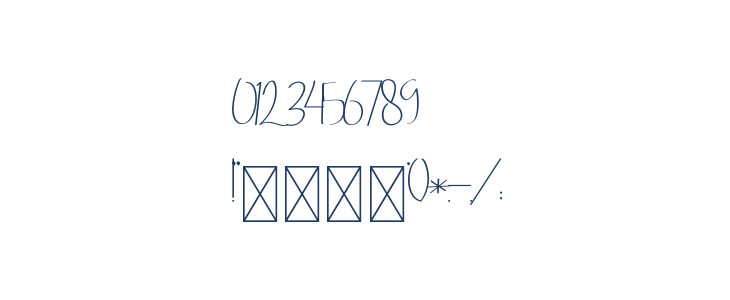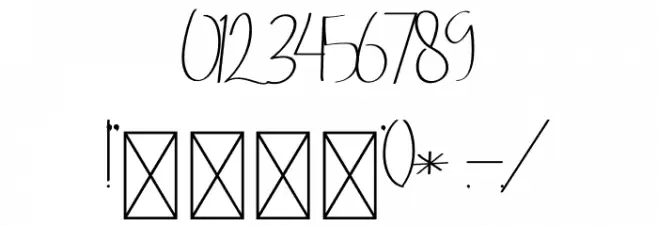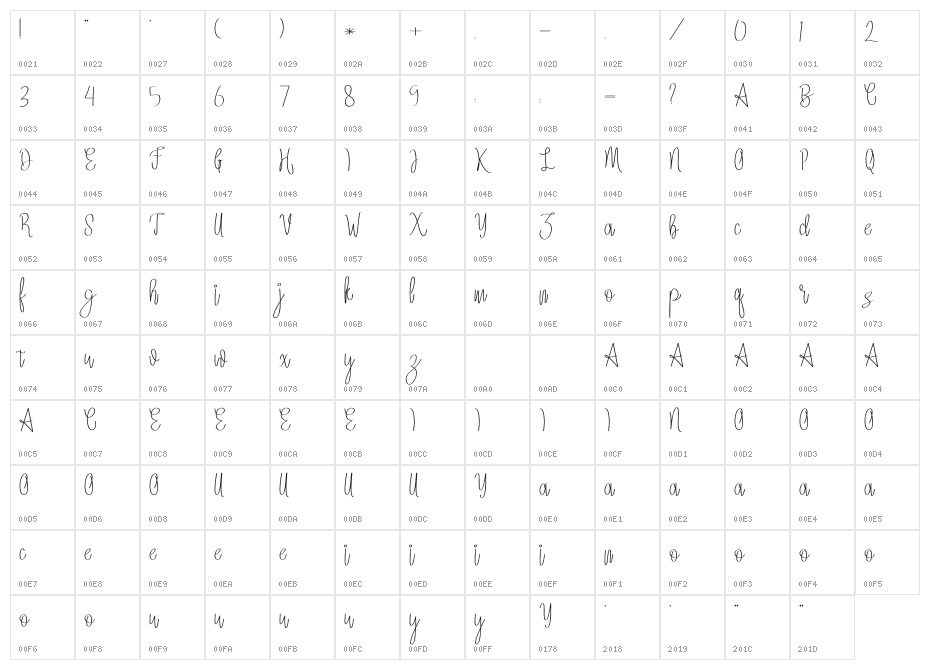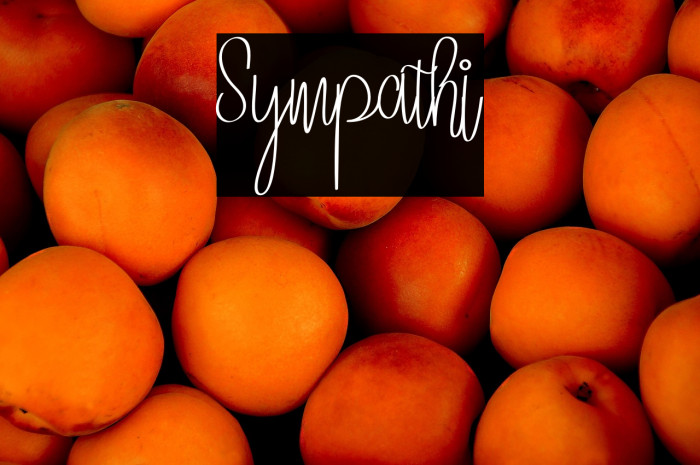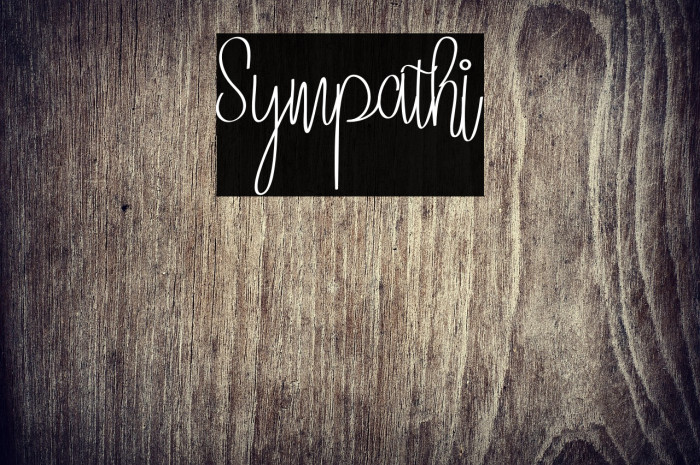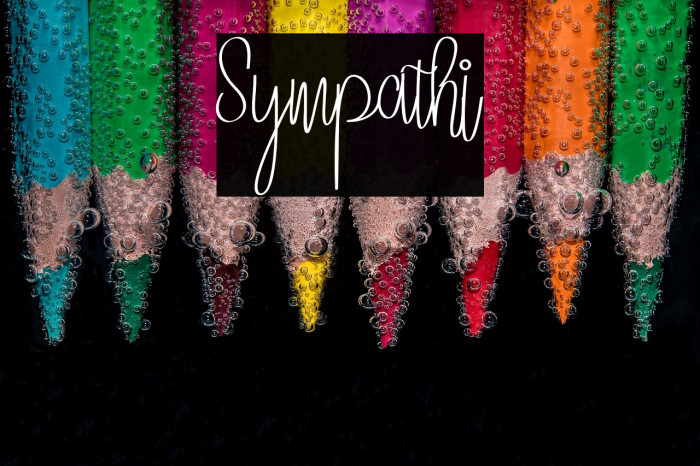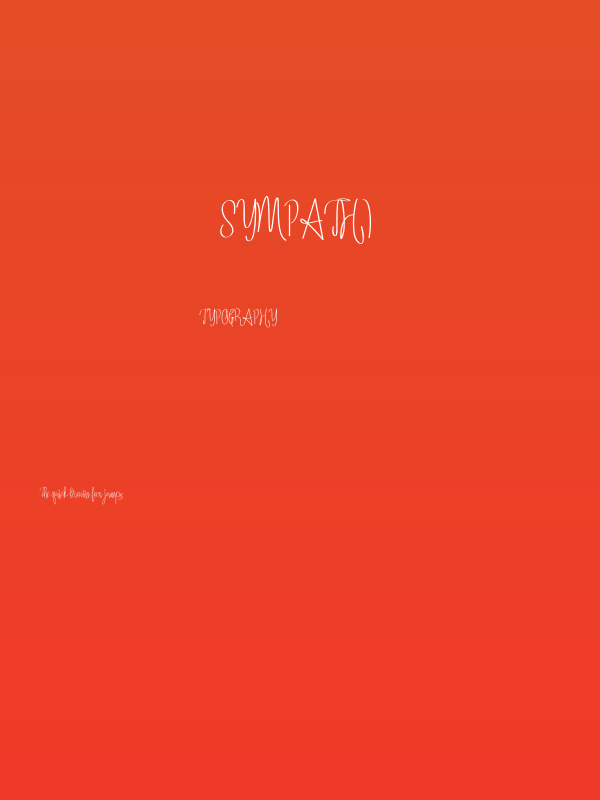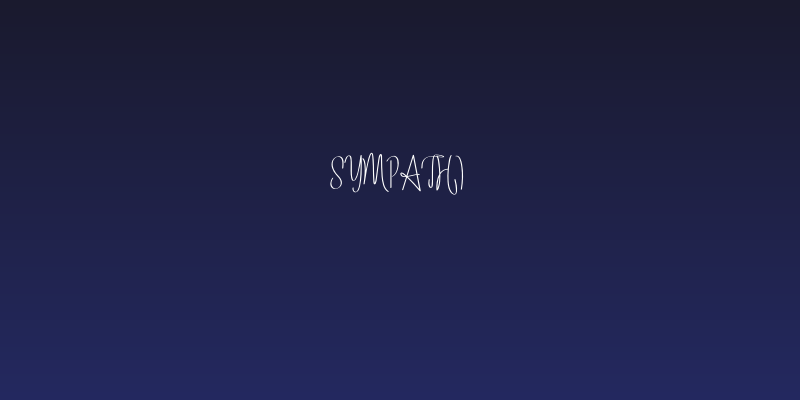
Sympathi Font
Sympathi Description
This font features an elegant and flowing script style, characterized by its delicate and intricate letterforms. The uppercase letters are tall and slender, with graceful loops and curves that give a sense of sophistication and fluidity. The lowercase letters maintain a consistent style, with smooth connections and a slightly more compact form. The numerals are distinct and maintain the same elegant style, ensuring readability while adding a touch of class. Special characters are thoughtfully designed to match the overall aesthetic, making this font versatile for various applications.